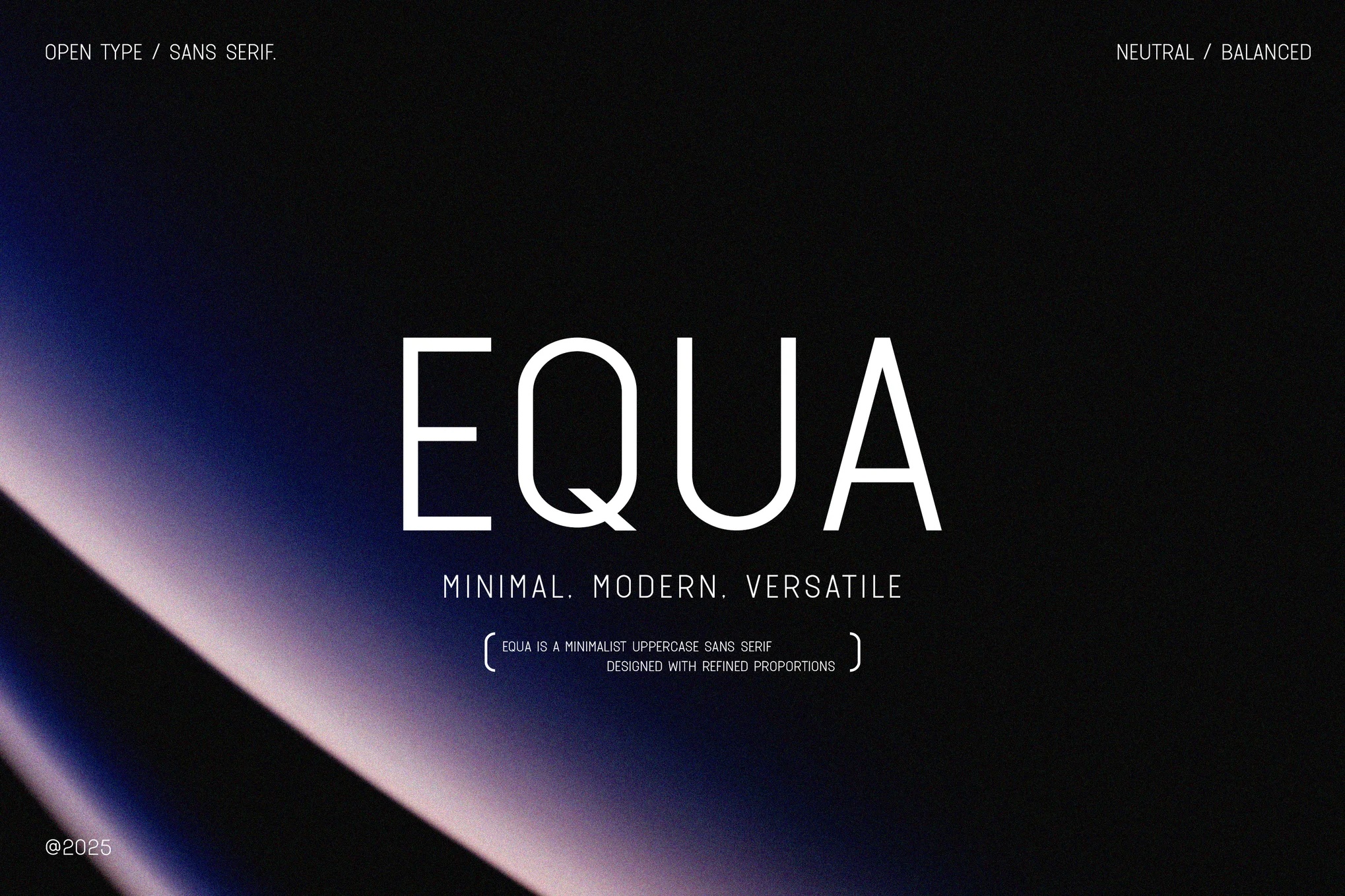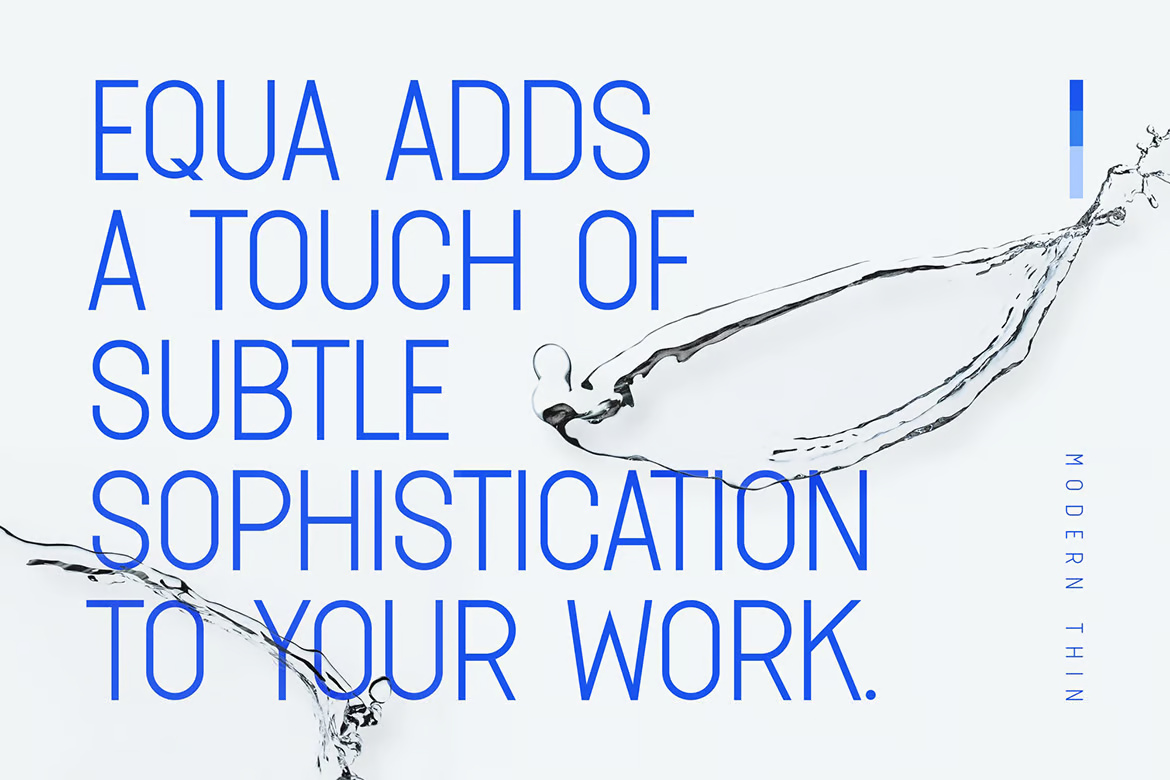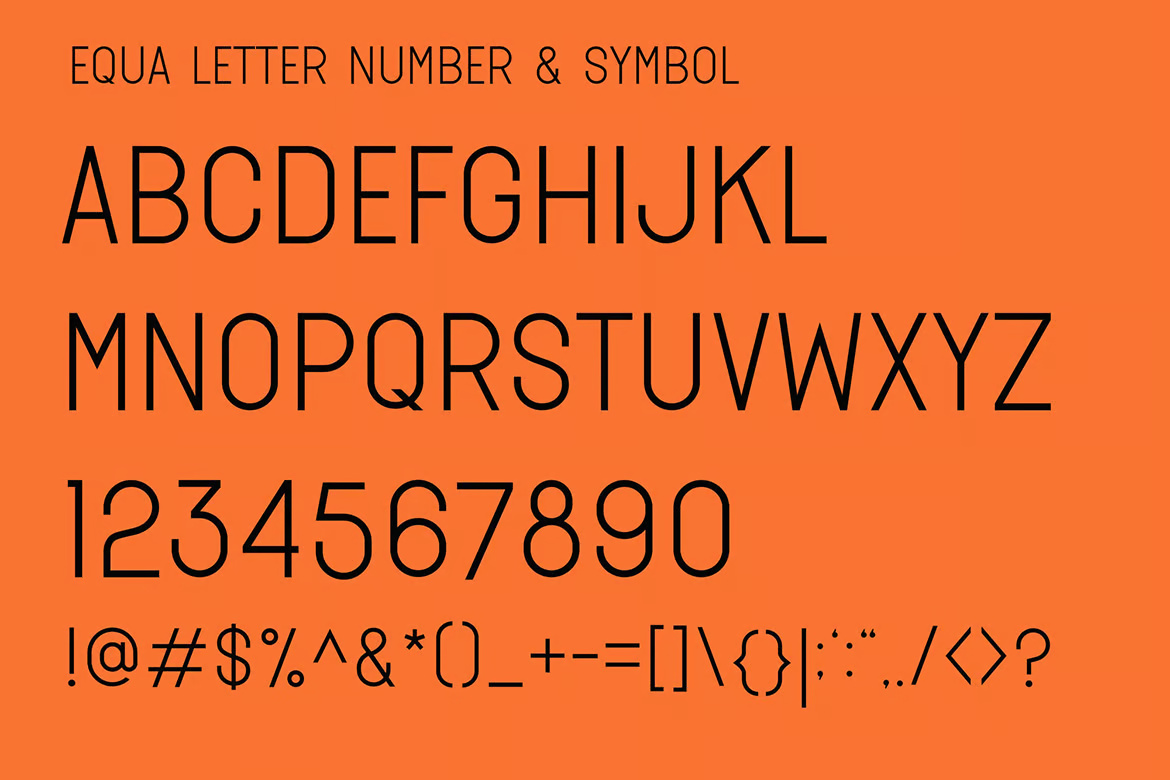
Equa is a light, slightly condensed capitals font with a geometric base. Strokes are thin and even, the O is a tall oval and the M has straight sides, so words look calm and orderly. Set big in blue on white, EQUA ADDS A TOUCH OF SUBTLE SOPHISTICATION fills the page without feeling heavy.
Best uses for Equa
- Fashion and beauty labels
- Editorial headlines
- Perfume and skincare packaging
- Minimal posters
- Website headings
Equa is thin and narrow. Pair it with Inter for body text, or Cormorant Garamond for a serif contrast. For a bolder headline next to it, try Oswald.
Equa Regular Sans-Serif Font